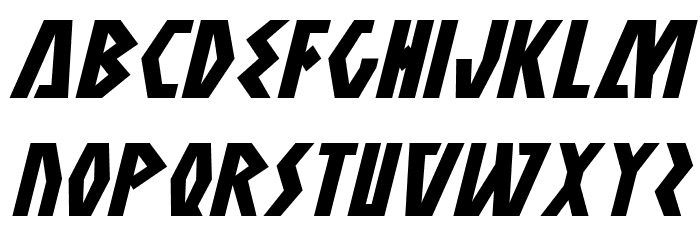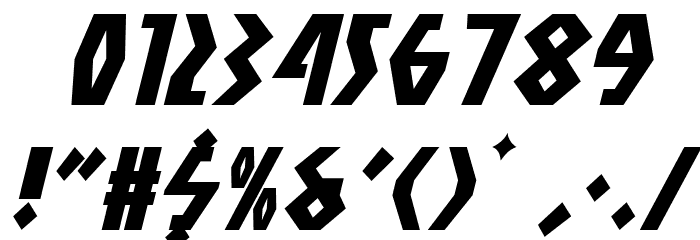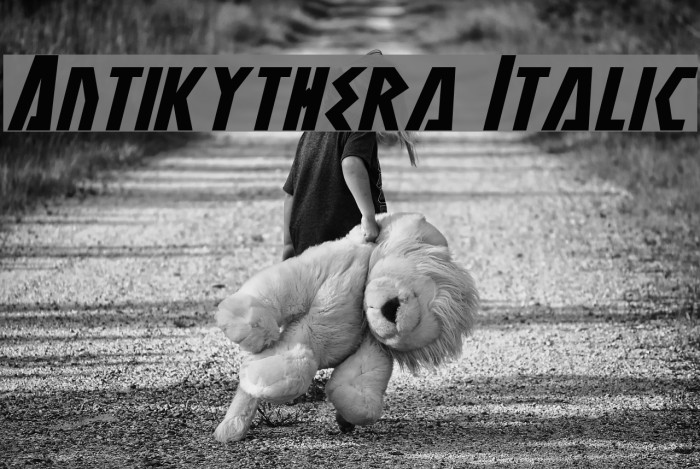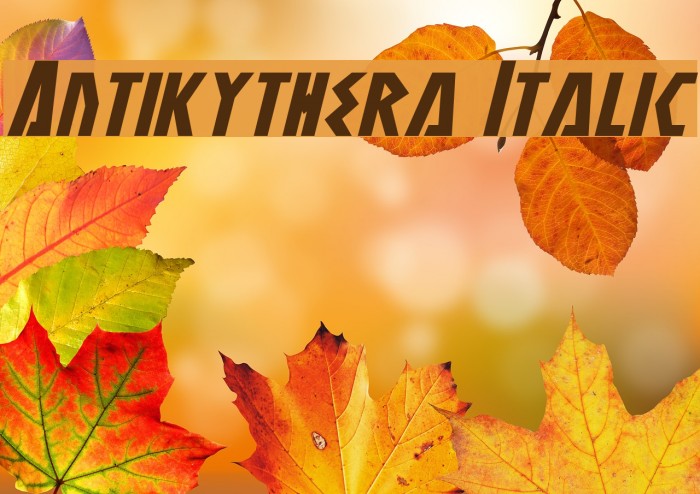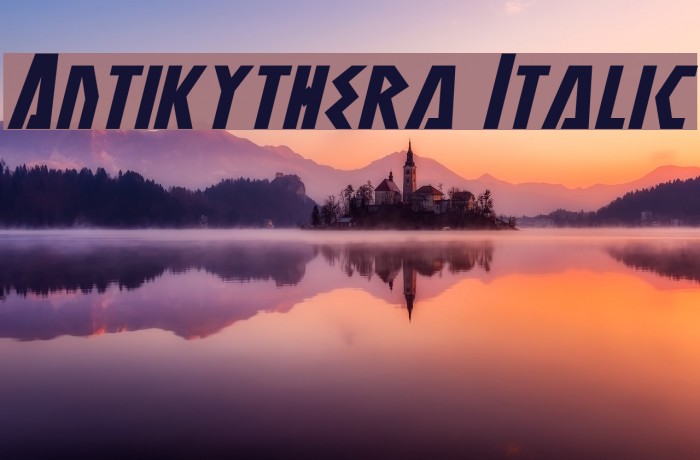
Antikythera Italic Font
This font features a bold and angular design, characterized by sharp edges and a dynamic slant that gives it a sense of motion and energy. The uppercase and lowercase letters maintain a consistent geometric style, with each character exhibiting a unique angularity that sets it apart. The numbers and special characters follow the same design principles, ensuring a cohesive look across all glyphs. The font's boldness and distinct style make it suitable for impactful designs where attention is key.
A bold, angular font with a dynamic slant and geometric style.
- Proposed Projects: Ideal for futuristic designs, video game graphics, posters, and branding that requires a strong, modern aesthetic.